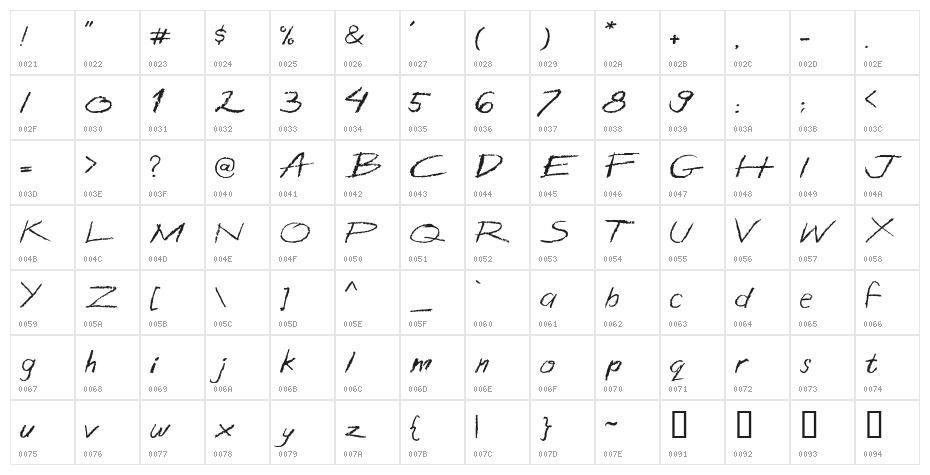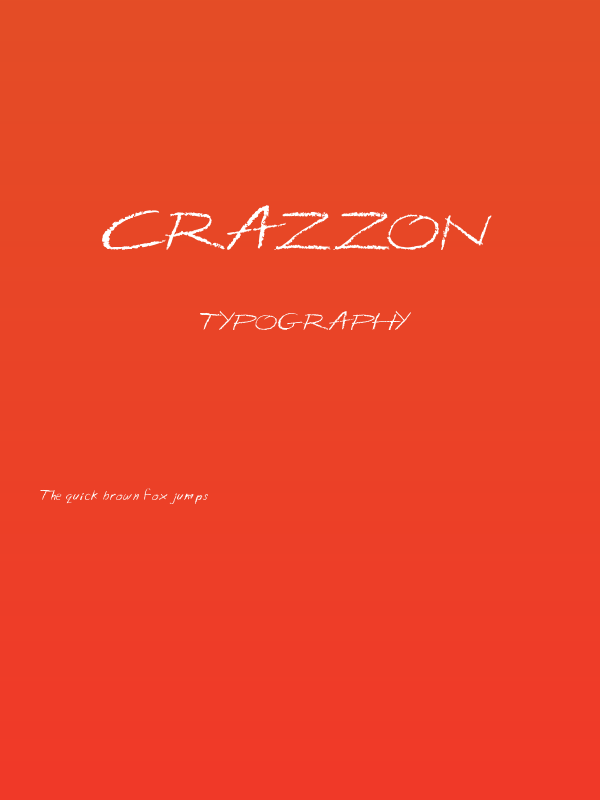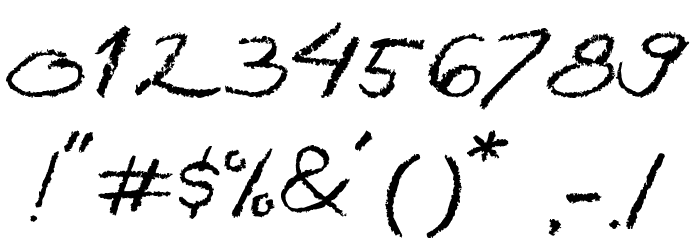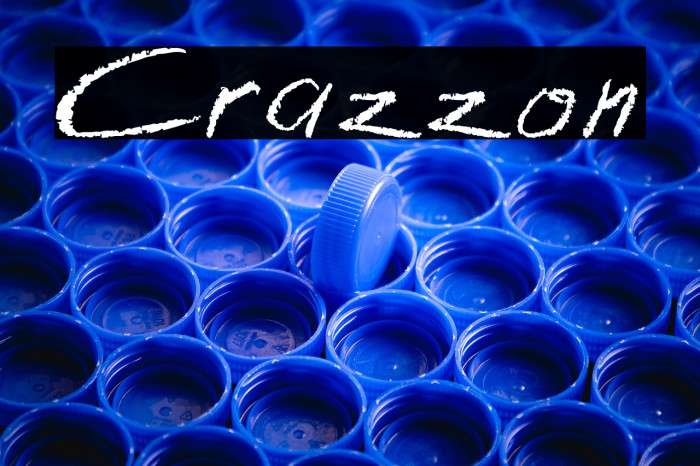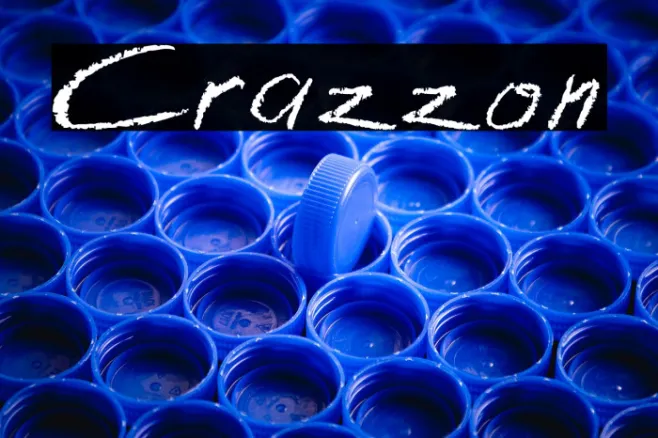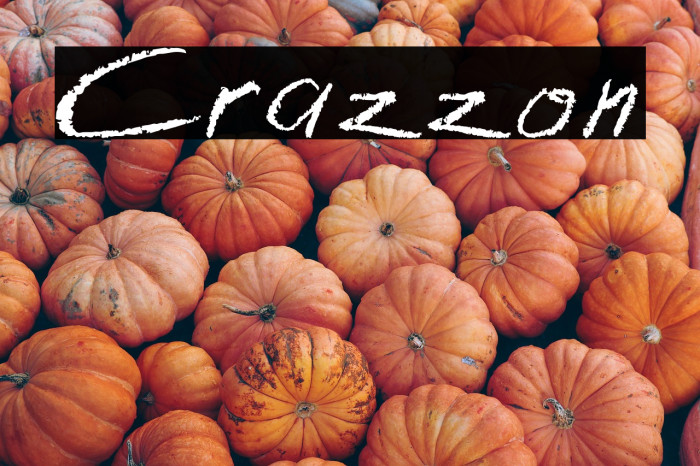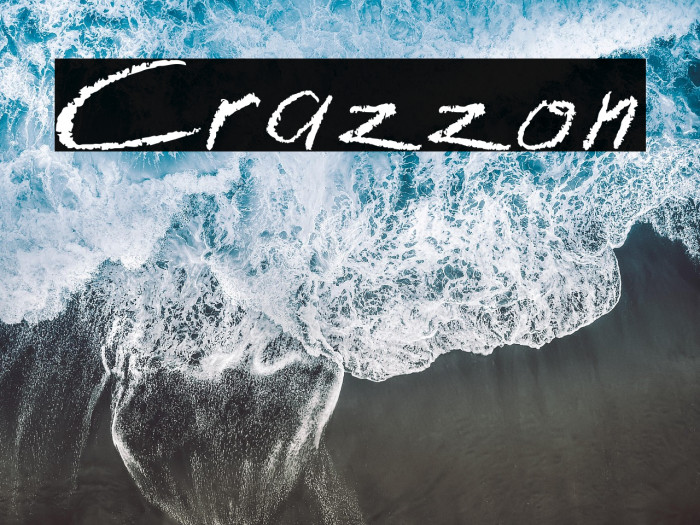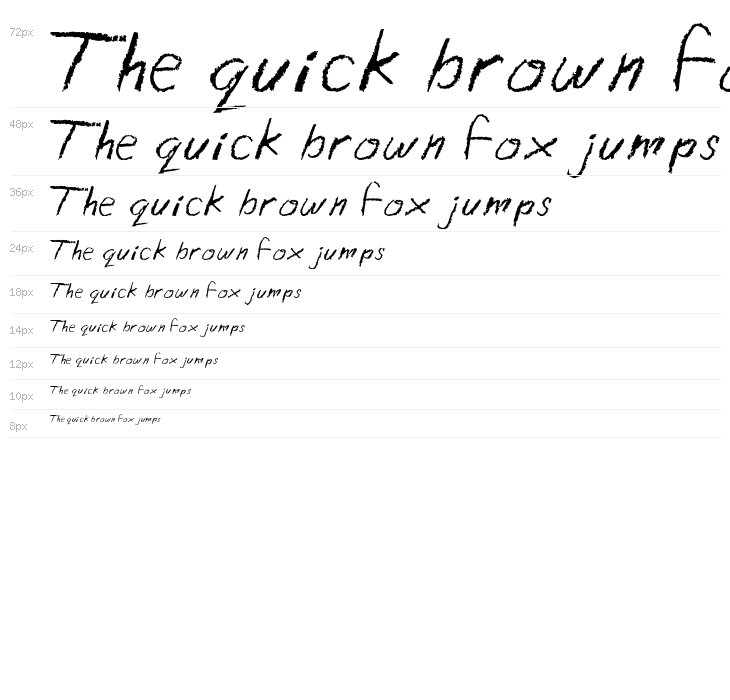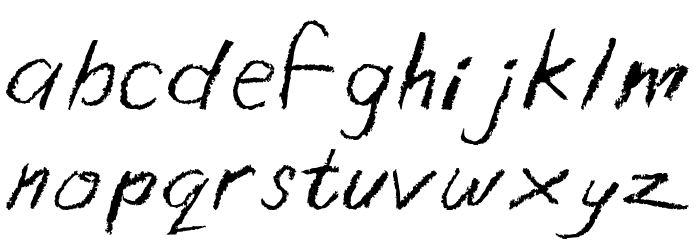
Crazzon Font
Crazzon Description
This font exudes a dynamic and energetic feel, characterized by its handwritten style that mimics a casual, yet deliberate script. The letters are slightly slanted, giving a sense of motion and fluidity. The strokes are uneven, with a textured appearance that adds a personal touch, reminiscent of a quick note or a spontaneous doodle. The uppercase letters maintain a consistent height, while the lowercase letters vary slightly, enhancing the informal aesthetic. Numbers and special characters follow the same style, ensuring cohesion across all elements. This font is perfect for projects that require a personal, human touch, such as invitations, greeting cards, or creative branding.
| Overall Style | Casual, Energetic |
| Use Case | Headlines, Creative projects, Personal notes |
| Proposed Projects | Ideal for invitations, greeting cards, creative branding, and personal notes. |